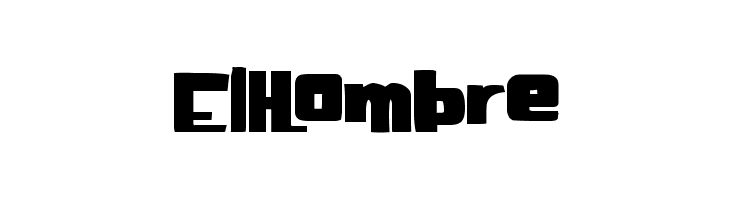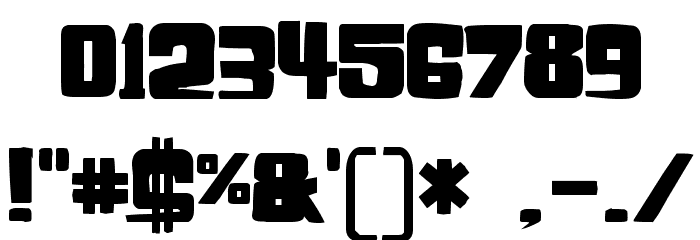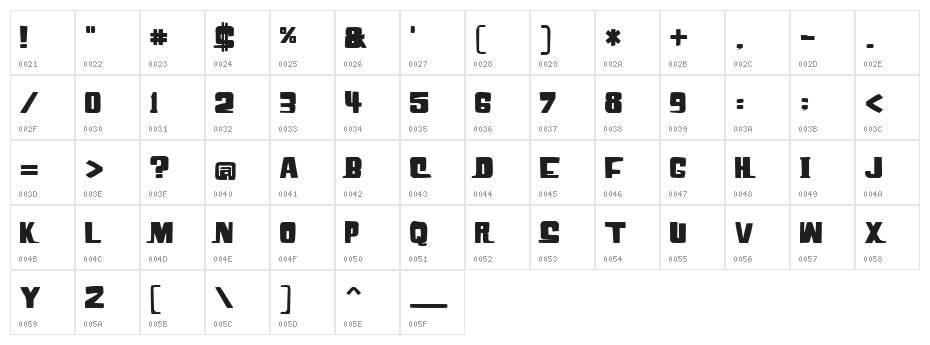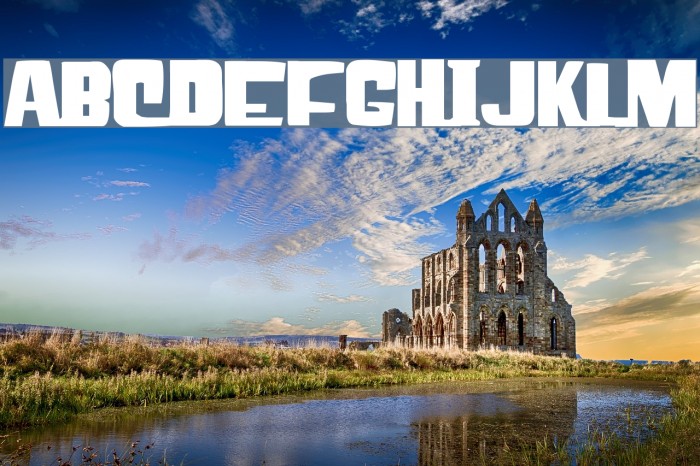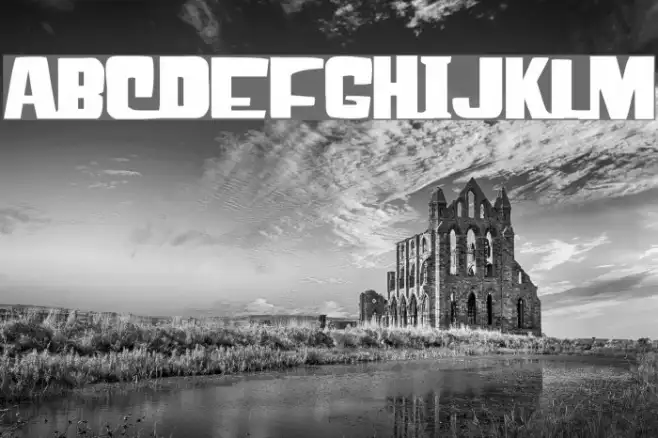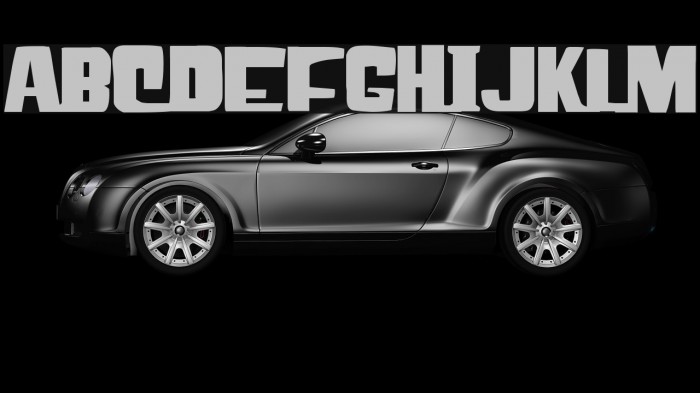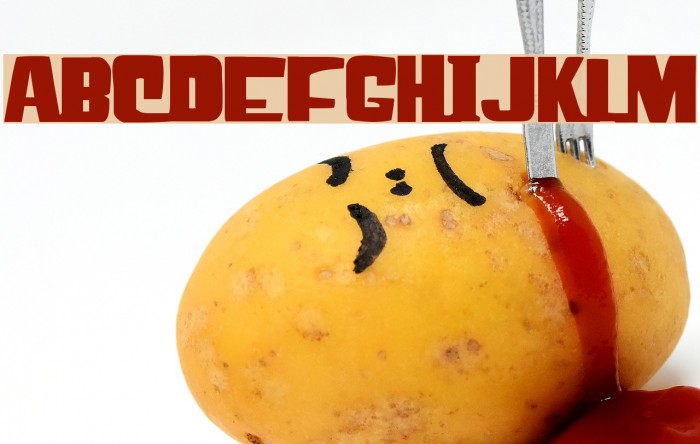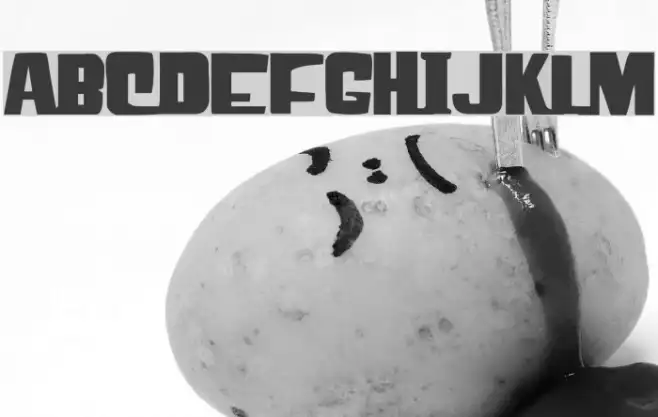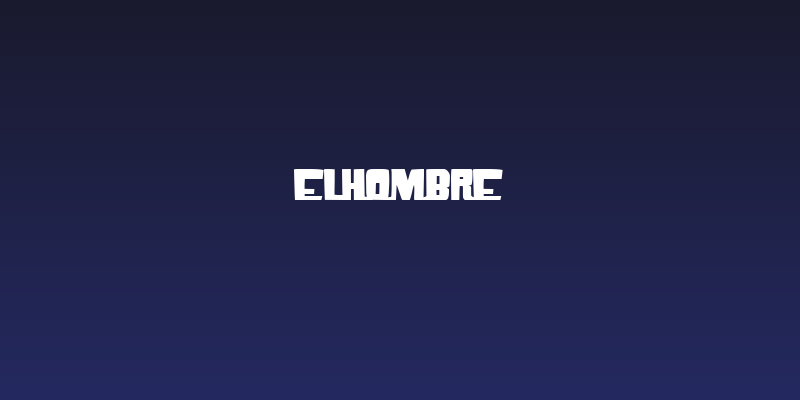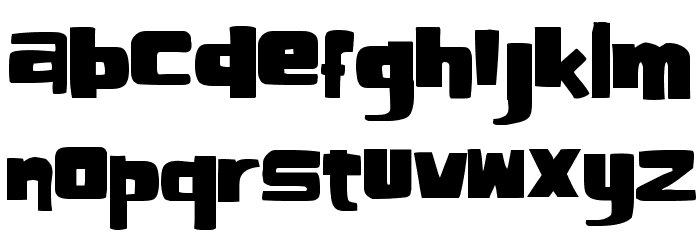
ElHombre Font
ElHombre Description
This bold and striking font features a unique, blocky design with a strong presence. The uppercase letters are particularly wide and imposing, while the lowercase letters maintain a consistent weight and style. The numbers are equally bold, ensuring they stand out in any context. Special characters are creatively designed, adding a playful yet robust element to the overall aesthetic. The font's thick strokes and minimal contrast contribute to its powerful and impactful appearance, making it ideal for attention-grabbing designs.